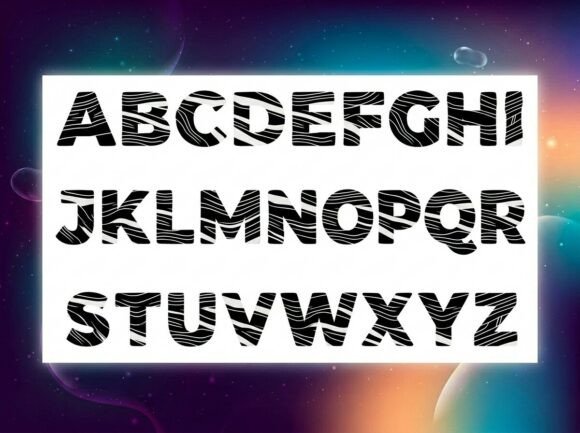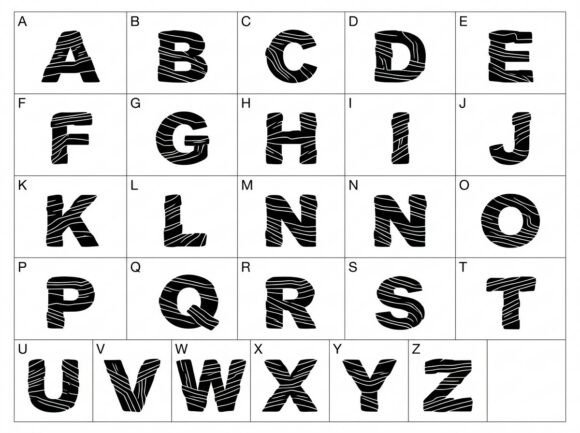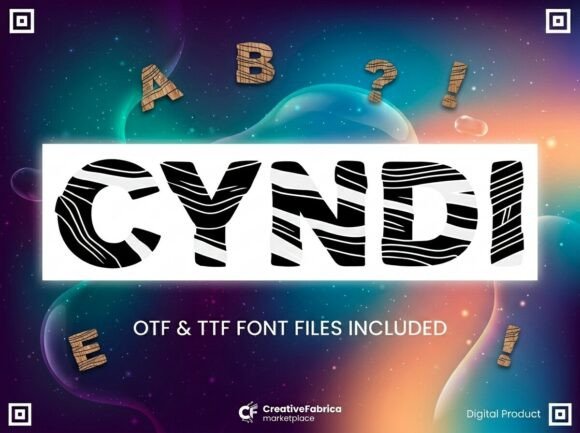
Cyndi Font: A Stunning Decorative Display Font for Creative Minds
Are you tired of using the same old fonts for your designs? Look no further than Cyndi Font, a unique and artistic display font that’s sure to turn heads. Designed to be the center of attention, Cyndi Font features a strong visual personality and artistic elements that will elevate your designs to the next level.
What Makes Cyndi Font Special?
Cyndi Font is a decorative display font that’s perfect for creators who want to break away from the ordinary. Its unique and artistic elements make it ideal for bold headlines, artistic logos, and creative packaging. Whether you’re a designer, crafty DIY enthusiast, or entrepreneur, Cyndi Font is a versatile addition to your font collection.
Key Features of Cyndi Font
- Unique Artistic Elements: Cyndi Font features intricate and artistic elements that will add a touch of elegance and sophistication to your designs.
- Strong Visual Personality: This font has a bold and eye-catching personality that’s sure to grab attention.
- Versatile: Cyndi Font is perfect for a variety of design projects, including bold headlines, artistic logos, and creative packaging.
- Professional and Polished Finish: Despite its bold and artistic nature, Cyndi Font maintains a professional and polished finish that’s suitable for high-end designs.
Who is Cyndi Font for?
Cyndi Font is perfect for:
- Designers: Graphic designers, branding experts, and visual artists who want to add a unique touch to their designs.
- Crafters: DIY enthusiasts, crafty makers, and small business owners who want to create eye-catching packaging and branding materials.
- Entrepreneurs: Business owners who want to create a bold and memorable brand identity.
Tips for Using Cyndi Font
Here are some tips for getting the most out of Cyndi Font:
- Use it for Headlines: Cyndi Font is perfect for bold headlines and titles that need to grab attention.
- Create Artistic Logos: Use Cyndi Font to create unique and artistic logos that reflect your brand’s personality.
- Add a Personal Touch: Use Cyndi Font to add a personal touch to your packaging and branding materials.
Cyndi Font is a stunning decorative display font that’s perfect for creative minds. With its unique artistic elements, strong visual personality, and versatility, it’s an excellent addition to any font collection. Whether you’re a designer, crafter, or entrepreneur, Cyndi Font is sure to elevate your designs to the next level.